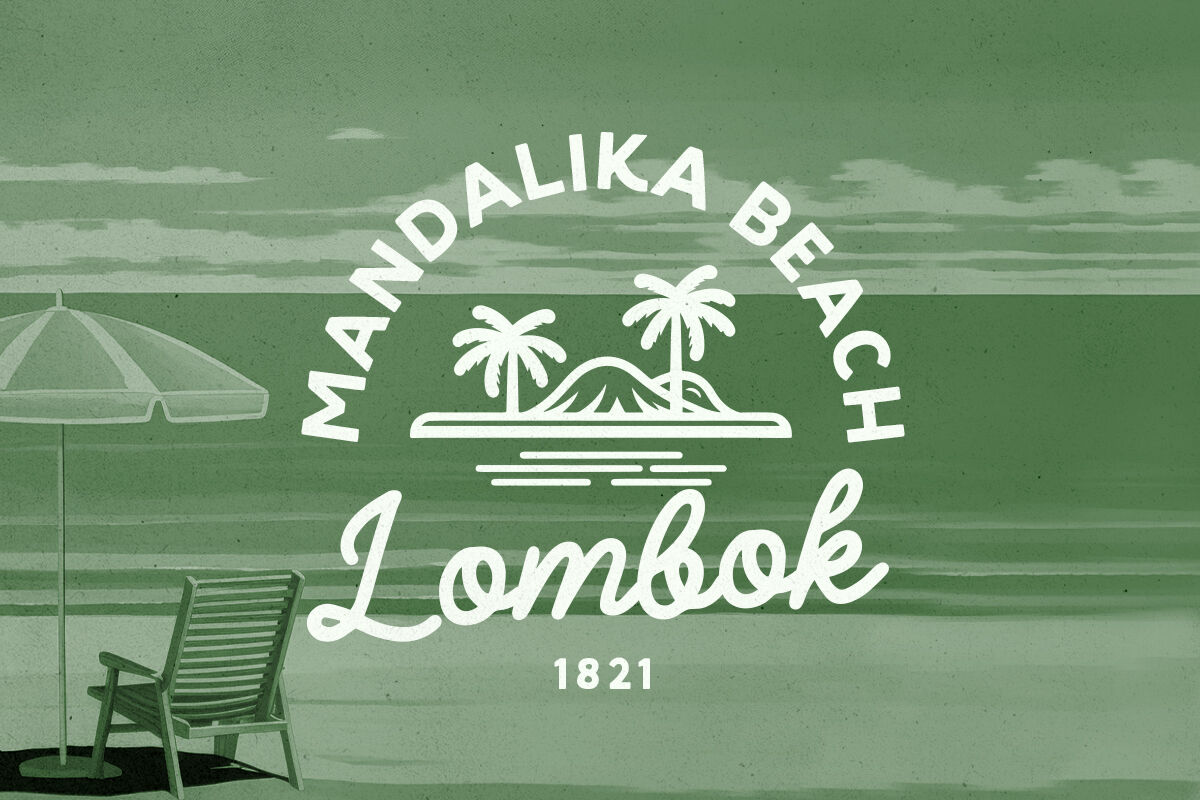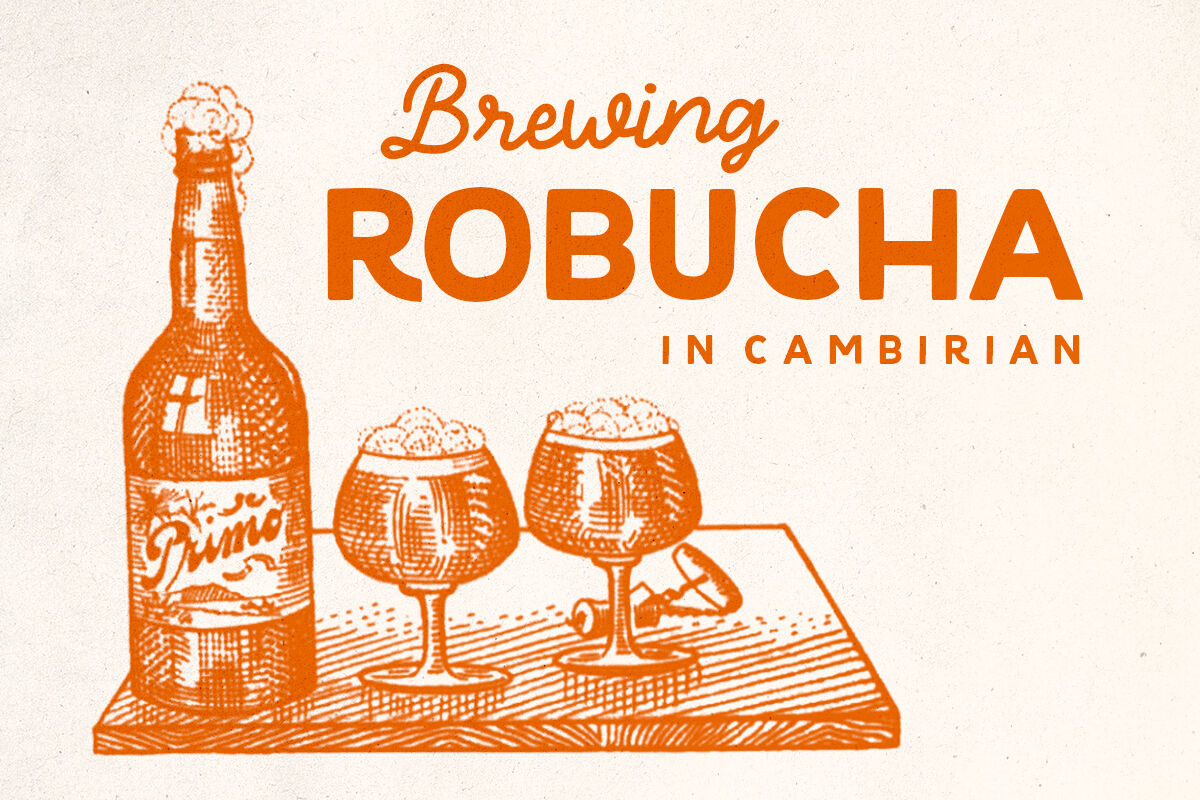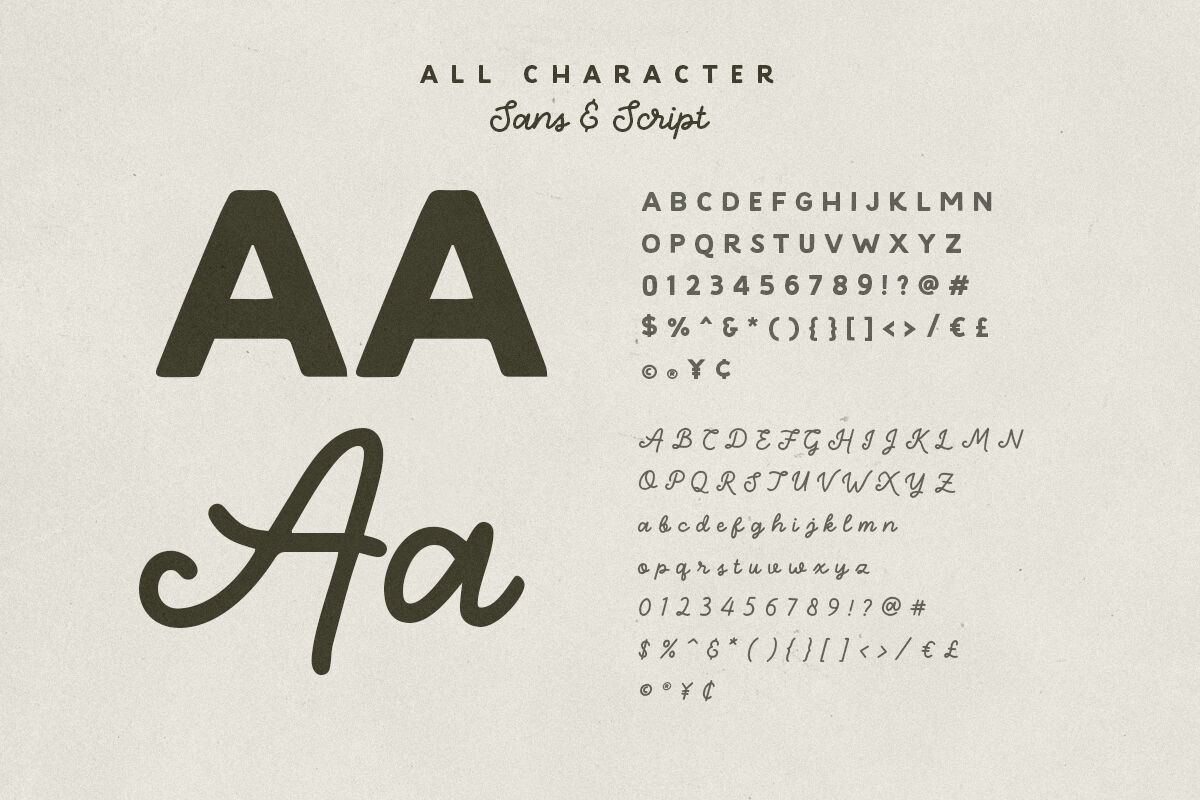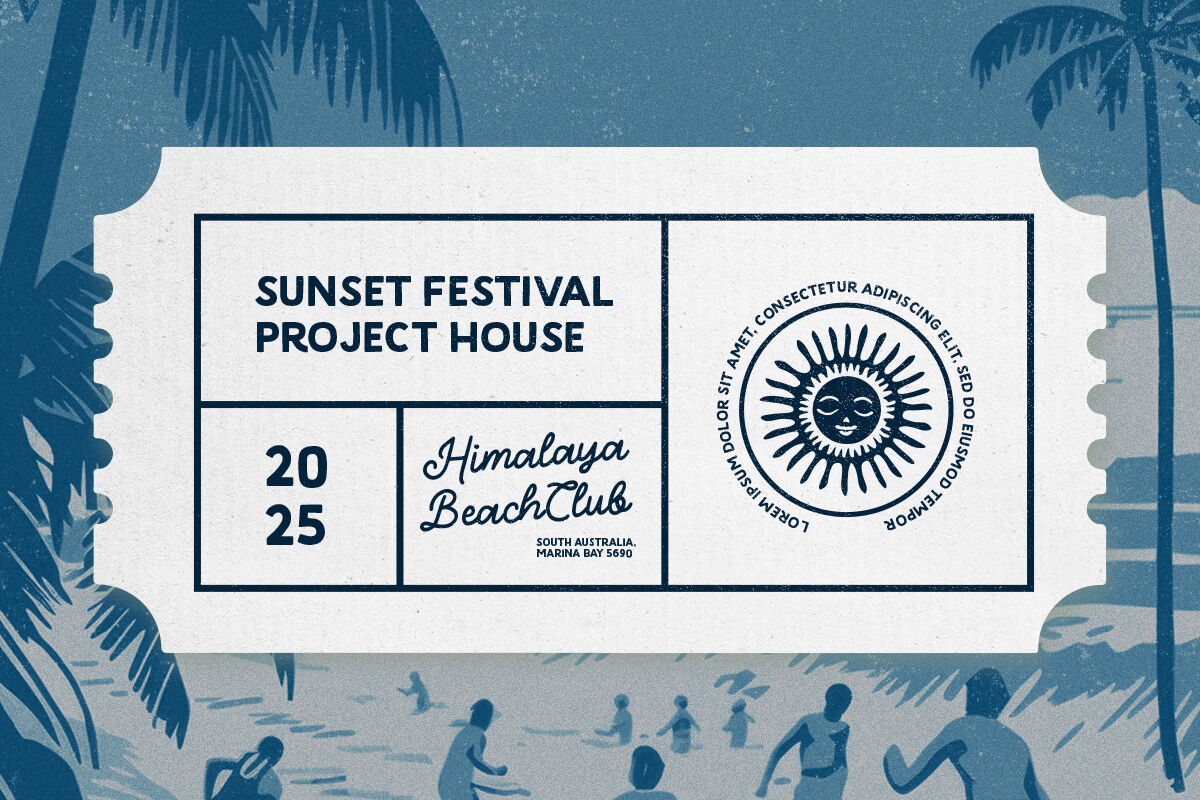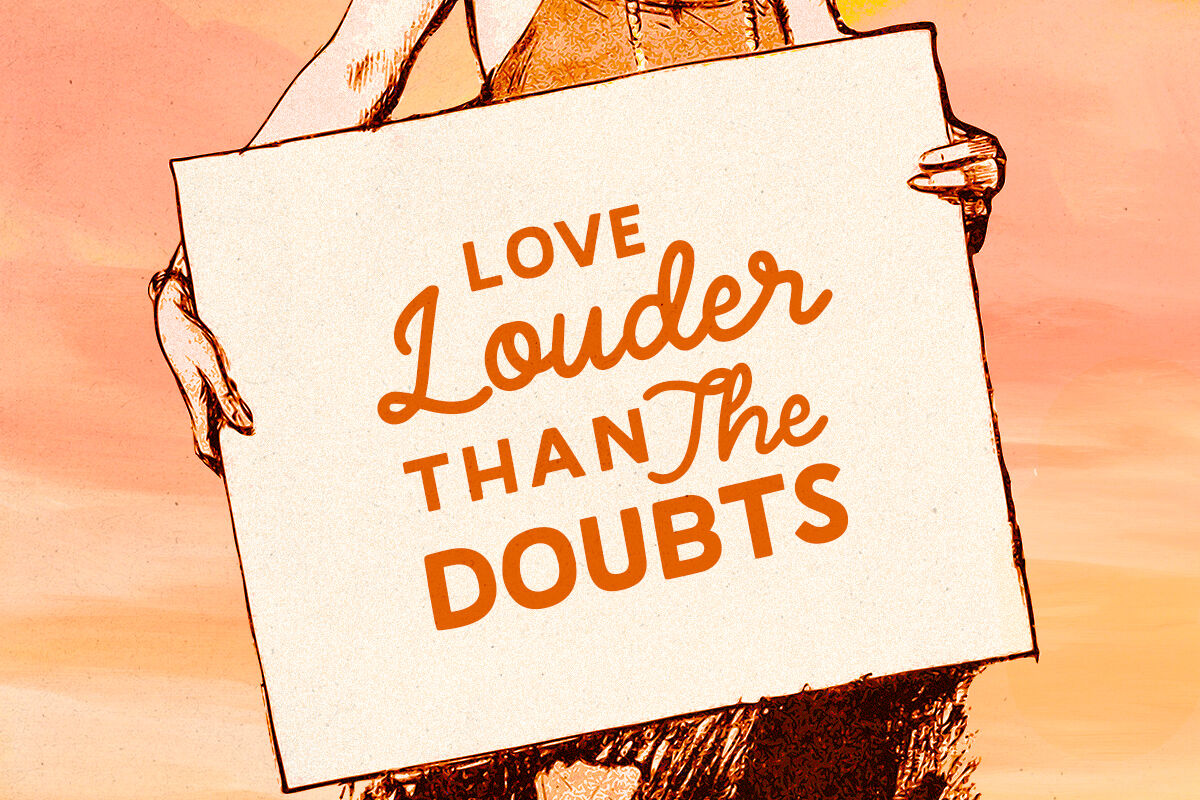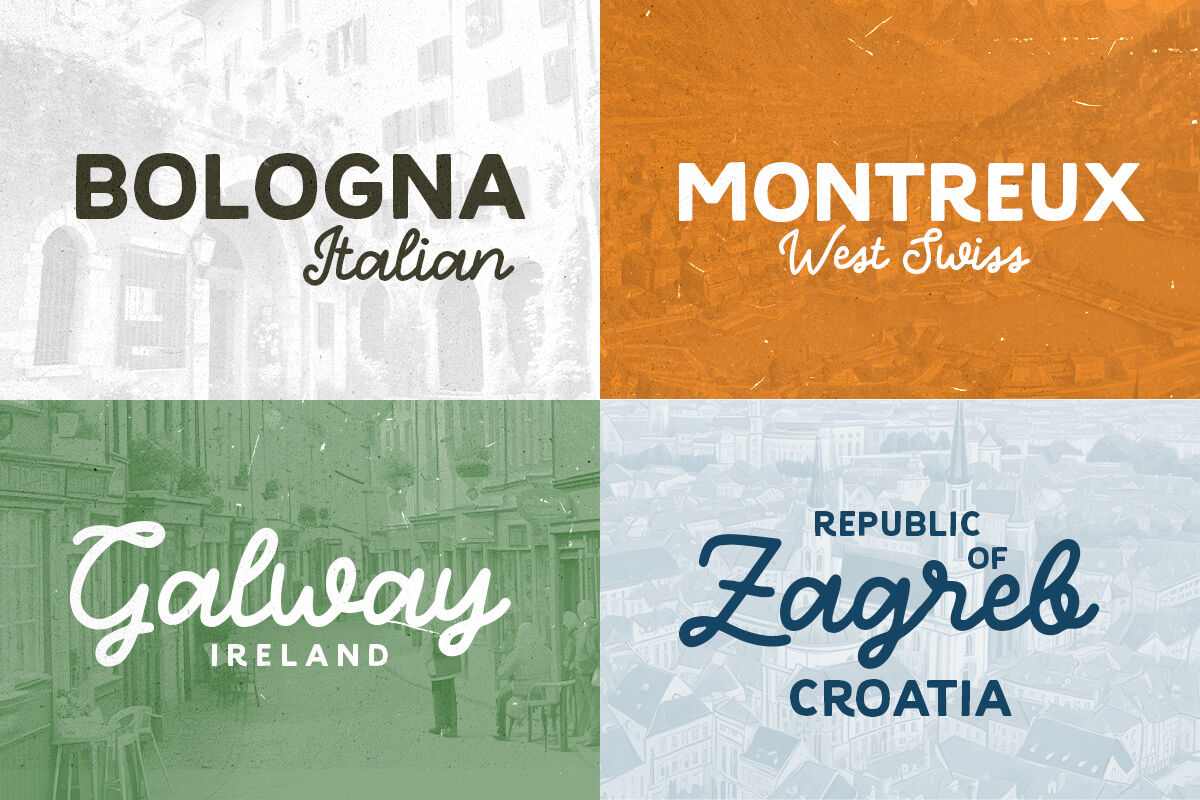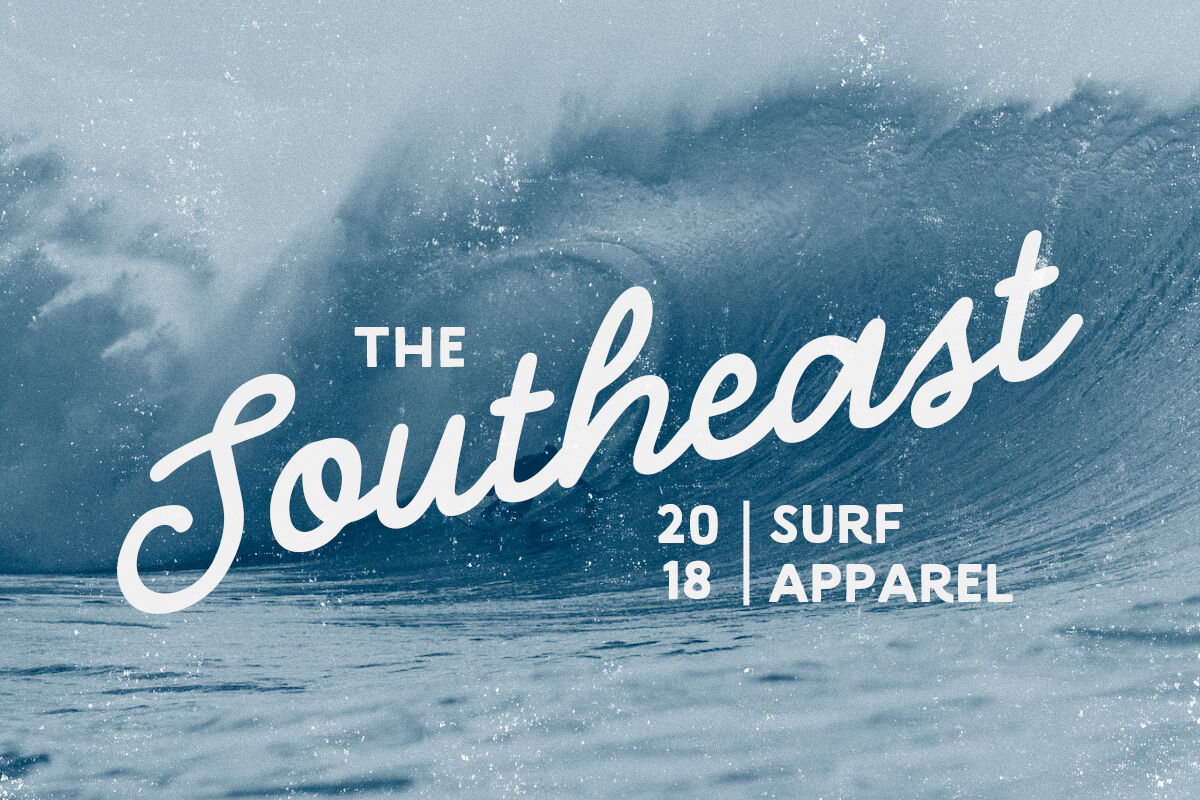
Grand Holiday - Travel Font Duo
Grand Holiday is a travel font duo that contains minimalist sans and monoline script that made by hand lettering style. You can use this font for any purpose such as poster, book cover, logo, branding and quote as well. This font is suitable for project that have outdoor or adventure themes. Grand Holiday also support multi language.
GrandHoliday Sans
GrandHoliday Script